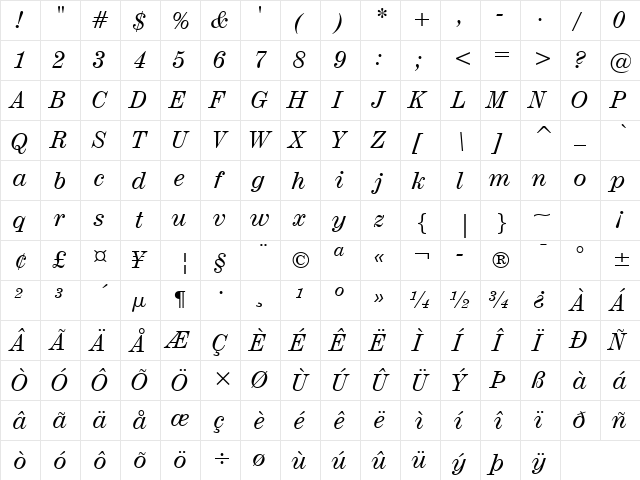
Century725 BT Italic
Design Context for Century725 BT Typeface
Century725 BT offers clean, dependable letterforms without strong stylistic allegiance, making it a practical choice for designers who need flexibility. The slanted form adds forward momentum and visual energy.
Pro Tip: Use Century725 BT for emphasis, pull quotes, and subheadings where its slanted energy can add rhythm to the layout.